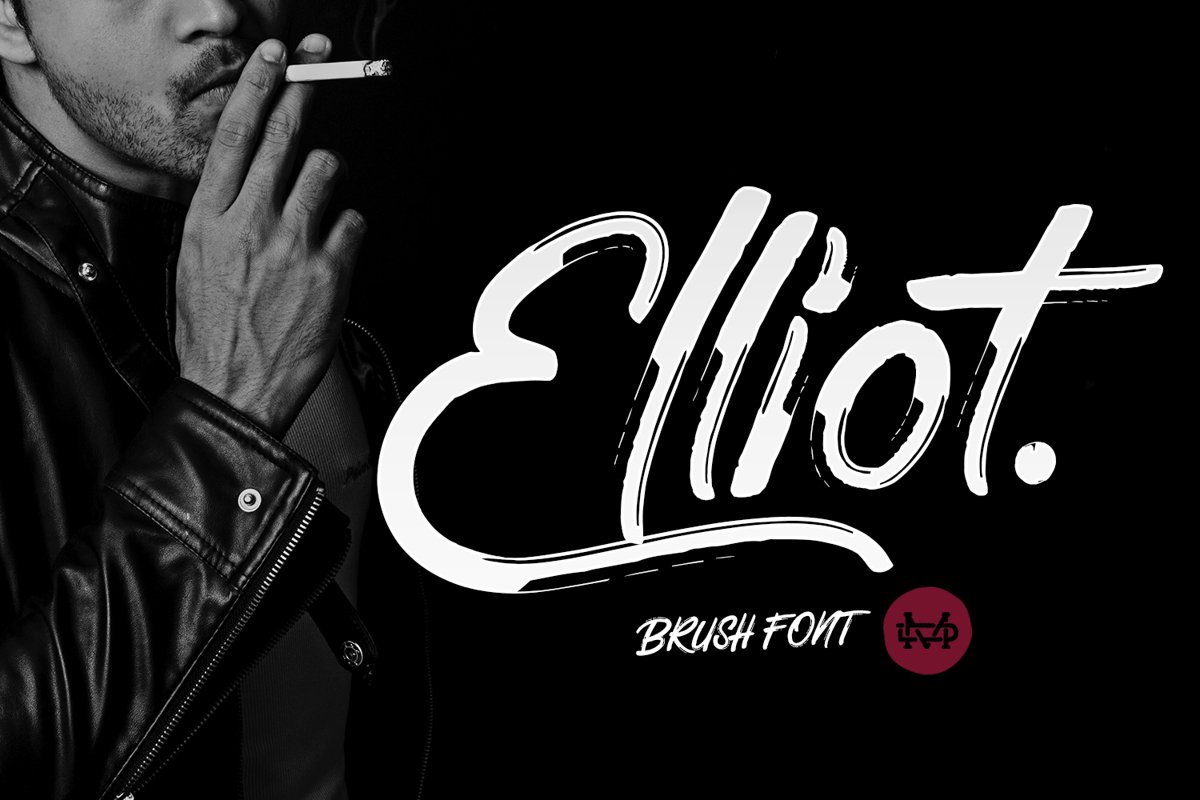
Elliot Brush Font
Elliot Swashes
Elliot
Introducing Elliot
Elliot is a bold Brush font. This font perfect for poster design, book covers, merchandise, fashion campaigns, newsletters, branding, advertising, magazines, greeting cards, album covers, and quote designs and more.